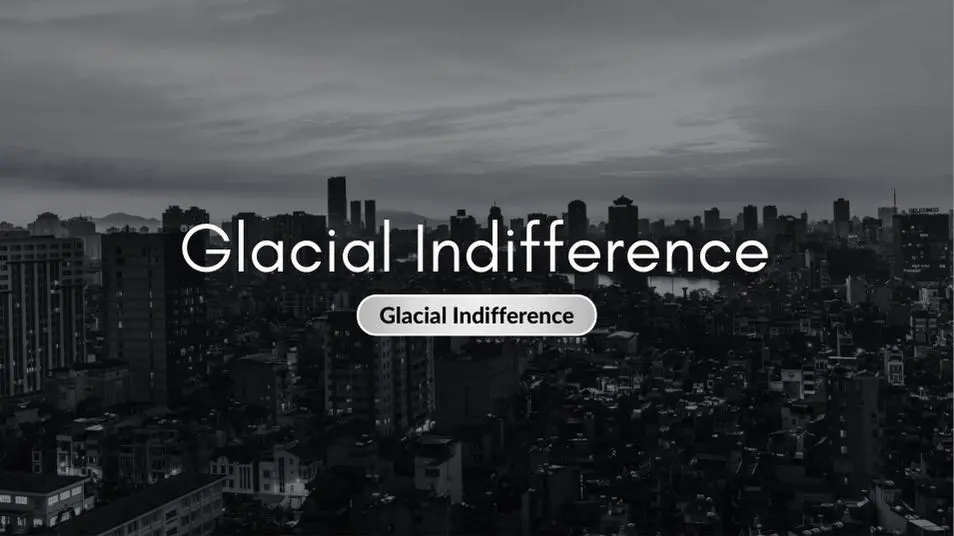
The font Glacial Indifference Regular, designed by Hanken Design Co., falls under the Sans Serif category & Glacial Indifference font family. Its smooth, flowing letterforms make it a versatile choice for projects that require both elegance and readability. Glacial Indifference is particularly well-suited for Editorial Design, Websites and User Interfaces, Posters and Promotions, Anywhere Readability is Key and Corporate and Brand Identity:. With its balance of simplicity and decorative appeal, this font brings a polished touch to both personal and professional designs.